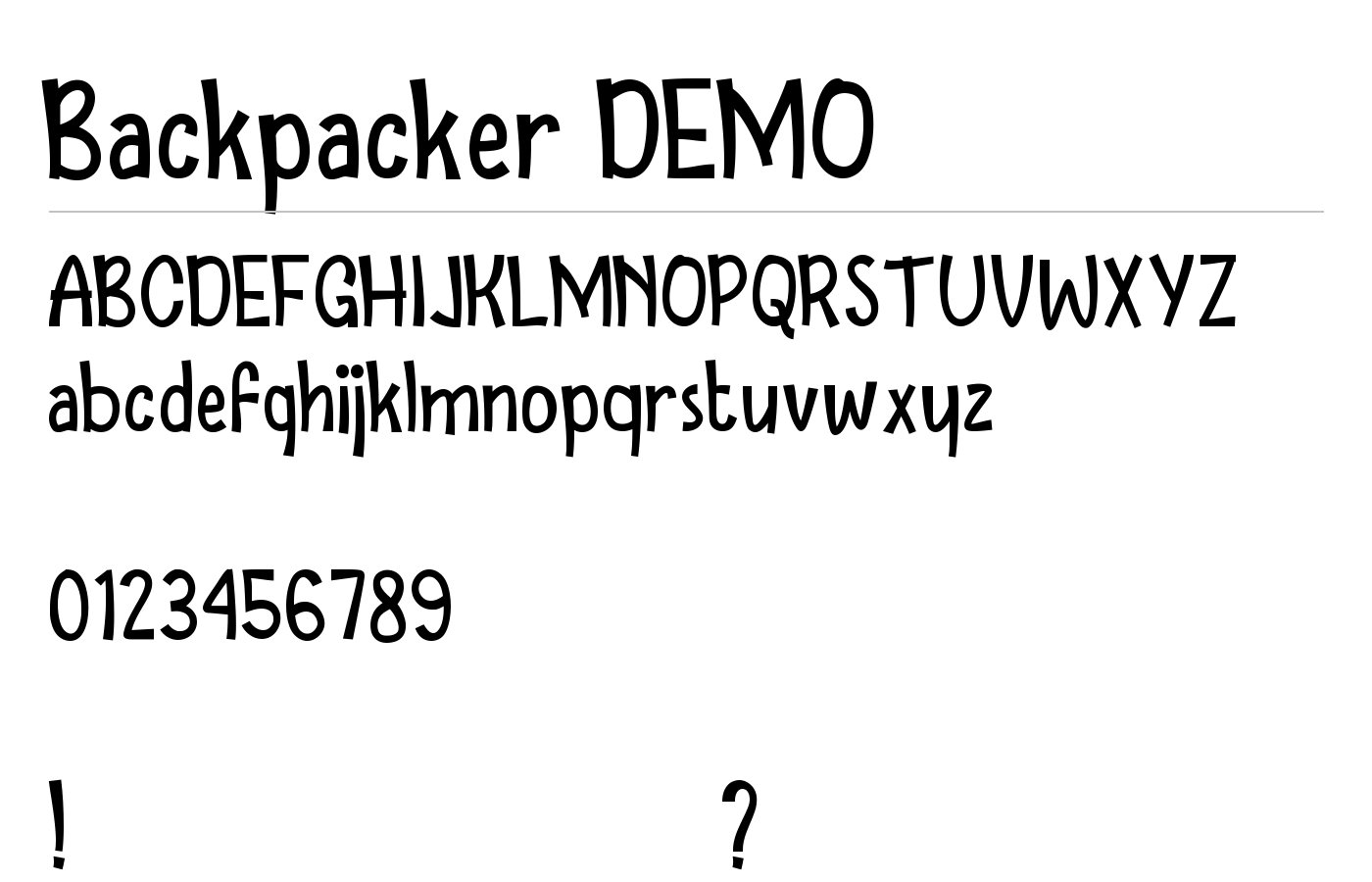
Backpacker DEMO is a playful sans serif font with a casual, hand-drawn feel. Its narrow, slightly irregular letterforms create a friendly and approachable vibe, making it ideal for informal designs like children’s books, quirky branding, and fun posters. The font’s unique charm comes from its uneven strokes and lively character shapes, perfect for adding personality to creative projects.
Backpacker DEMO Font
About Backpacker DEMO Font
| Font family | Backpacker DEMO Font |
| Designer | Trim Studio |